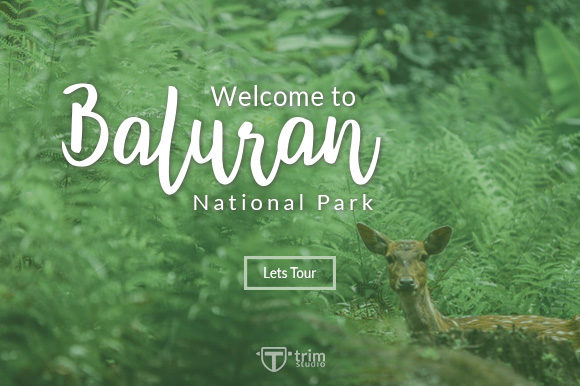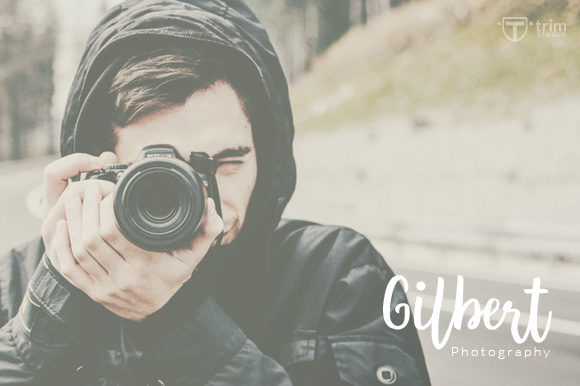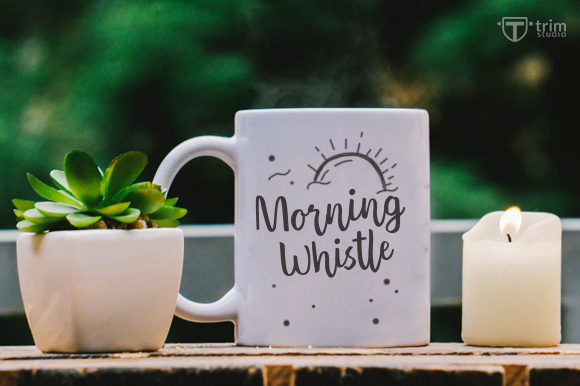
The Perfect Script: Unveiling the Andaman Font
Have you ever found yourself sipping coffee, surrounded by blank sheets of paper and a blank mind? Suddenly, a spark of creativity strikes, and you envision the perfect logo or signature that perfectly captures the essence of your brand. This is where the Andaman Font comes in – a modern script font that brings a touch of elegance and sophistication to any design.
The Andaman Font is designed to mimic the natural flow of handwriting, making it perfect for craft designs, signatures, photography, travel designs, and much more. With its unique, handwritten style, this font adds a personal touch to any project, making it a valuable asset for designers looking to create something truly special.
Whether you’re a seasoned designer or just starting out, the Andaman Font is sure to inspire your next creative project. Its versatility and beauty make it a must-have in any designer’s toolkit, and we’re excited to dive deeper into what makes this font so special.
Andaman Font Key Features
- Unique Characteristics: Andaman Font features a unique blend of traditional and modern elements, with intricate details and ornaments that add a touch of elegance and sophistication.
- Font Weight and Style: Andaman Font comes in multiple weights, from Light to Bold, and various styles, including Regular, Italic, and Script, allowing for a wide range of creative possibilities.
Andaman Font Review
As a designer, I had the opportunity to work with the Andaman Font, and I must say it has both its pros and cons. Let’s start with the good stuff! ✨
- The Andaman Font is highly versatile, suitable for both digital and print media.
- It features a unique blend of modern and traditional elements, making it perfect for creative projects.
- The font is highly customizable, allowing designers to adjust the weight, width, and spacing to suit their needs.
Now, let’s talk about the limitations. ⚠️
- The font may not be suitable for projects requiring a more formal or traditional tone, as its unique style may come across as too playful.
- The font’s character set may not be as extensive as some other fonts, which could be a limitation for projects requiring a wide range of characters.
- The font may not render well in certain font sizes or resolutions, which could affect its overall quality.
Overall, I would say that the Andaman Font is a solid choice for designers looking for a unique and creative font. While it may have some limitations, its versatility and customizability make it a great option for the right project. With some careful consideration, the Andaman Font can be a great addition to any designer’s toolkit.
Some tips for getting the most out of the Andaman font include:
– Using it for titles and headings to add a touch of elegance and sophistication.
– Pairing it with other fonts to create a unique and eye-catching design.
– Using it for invitations, business cards, and other printed materials.
– Experimenting with different font sizes and colors to create a unique look.